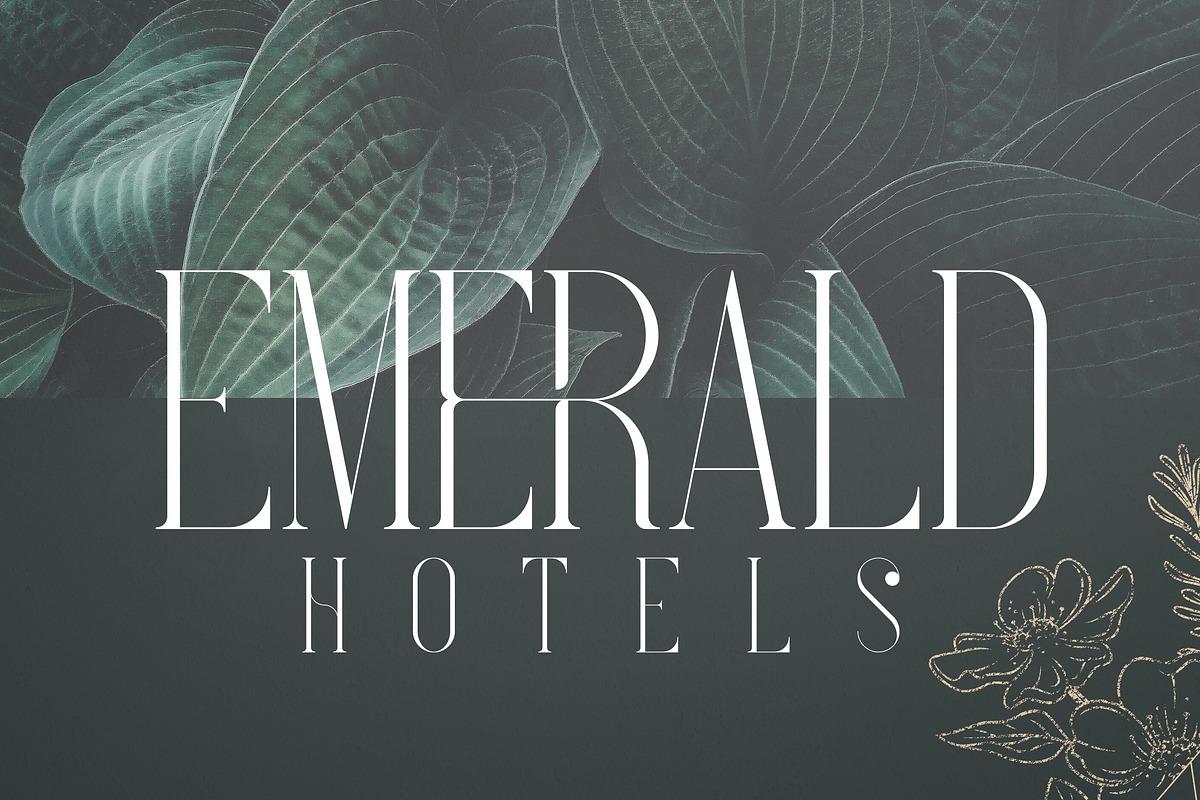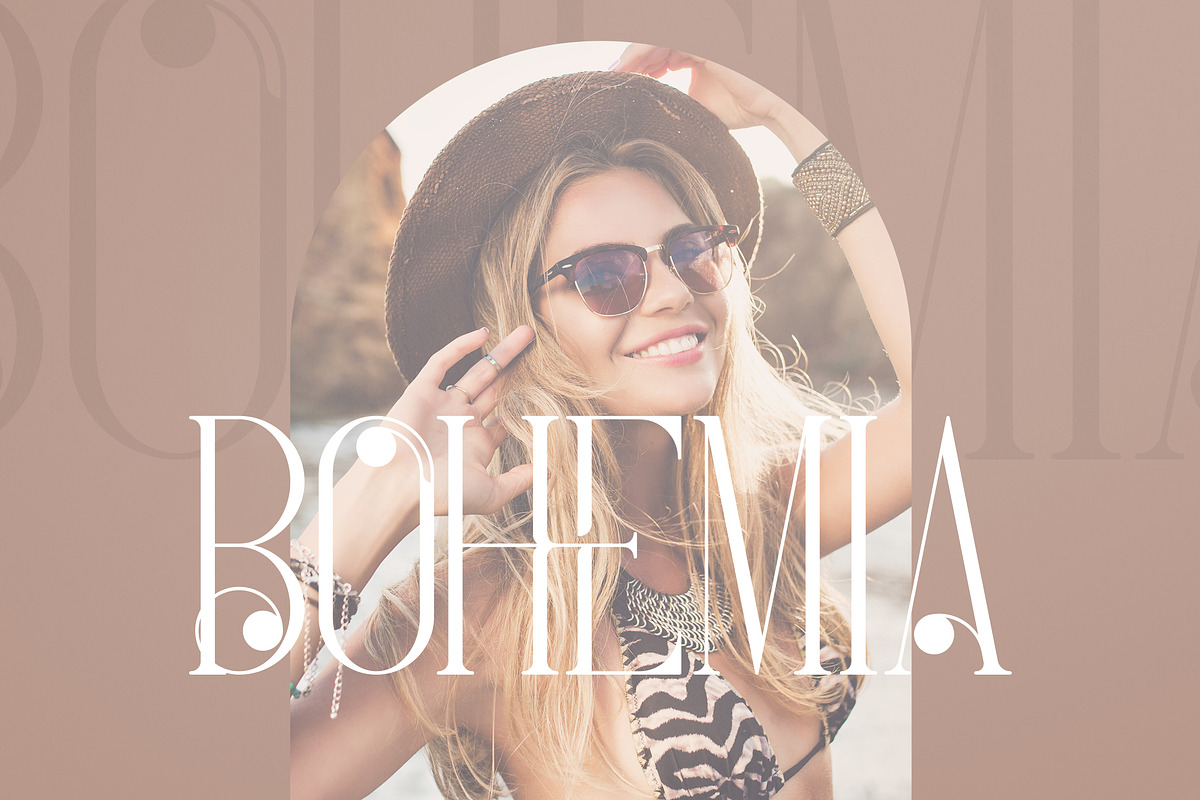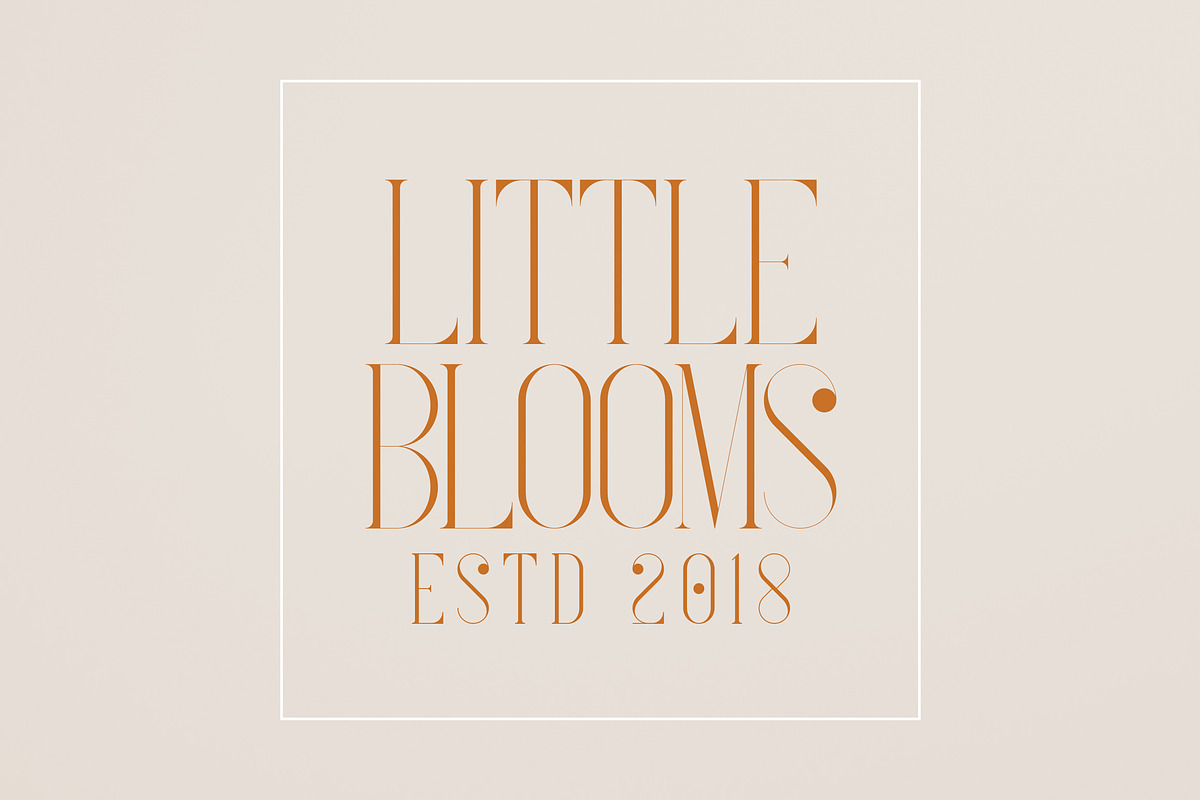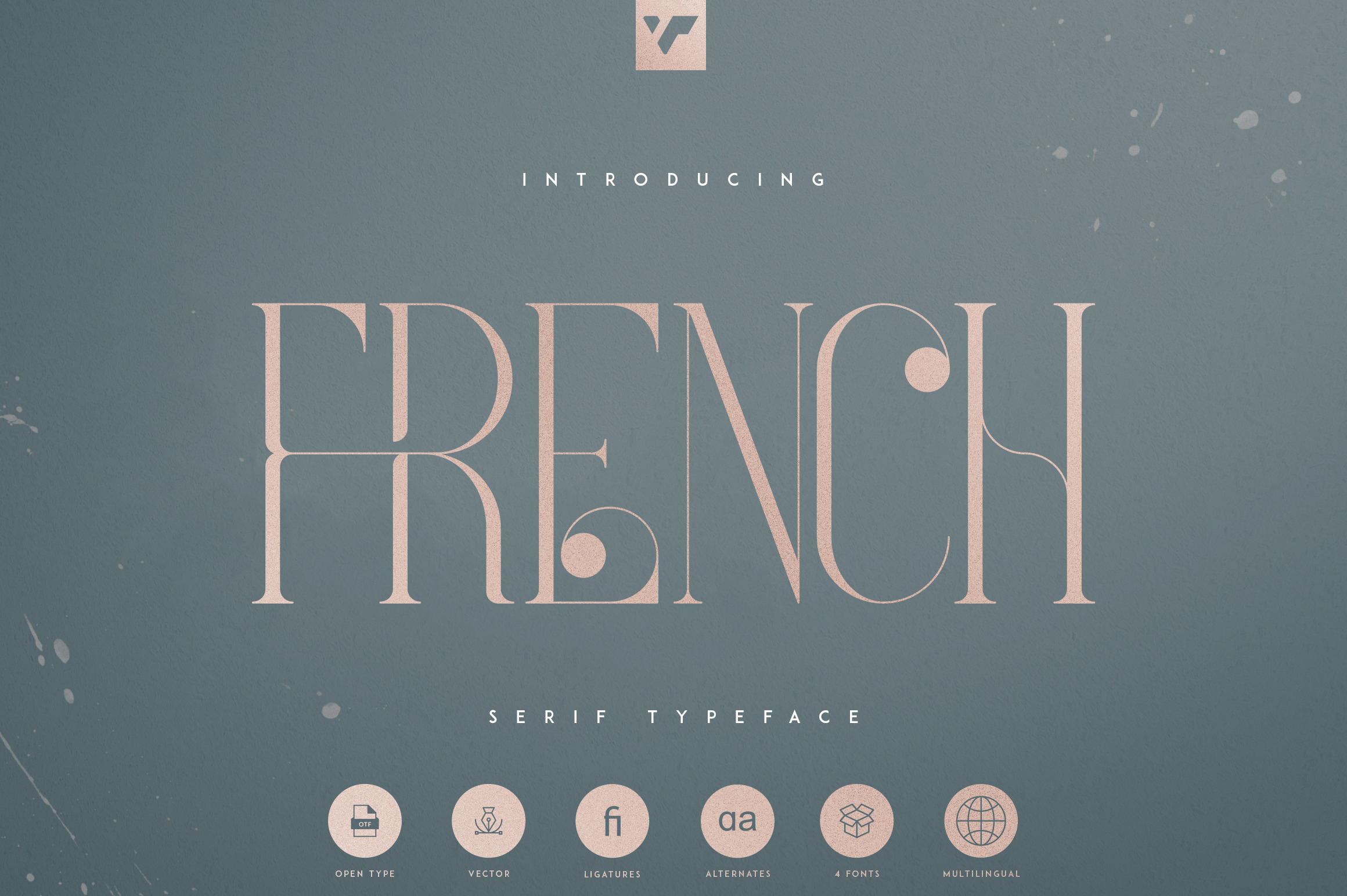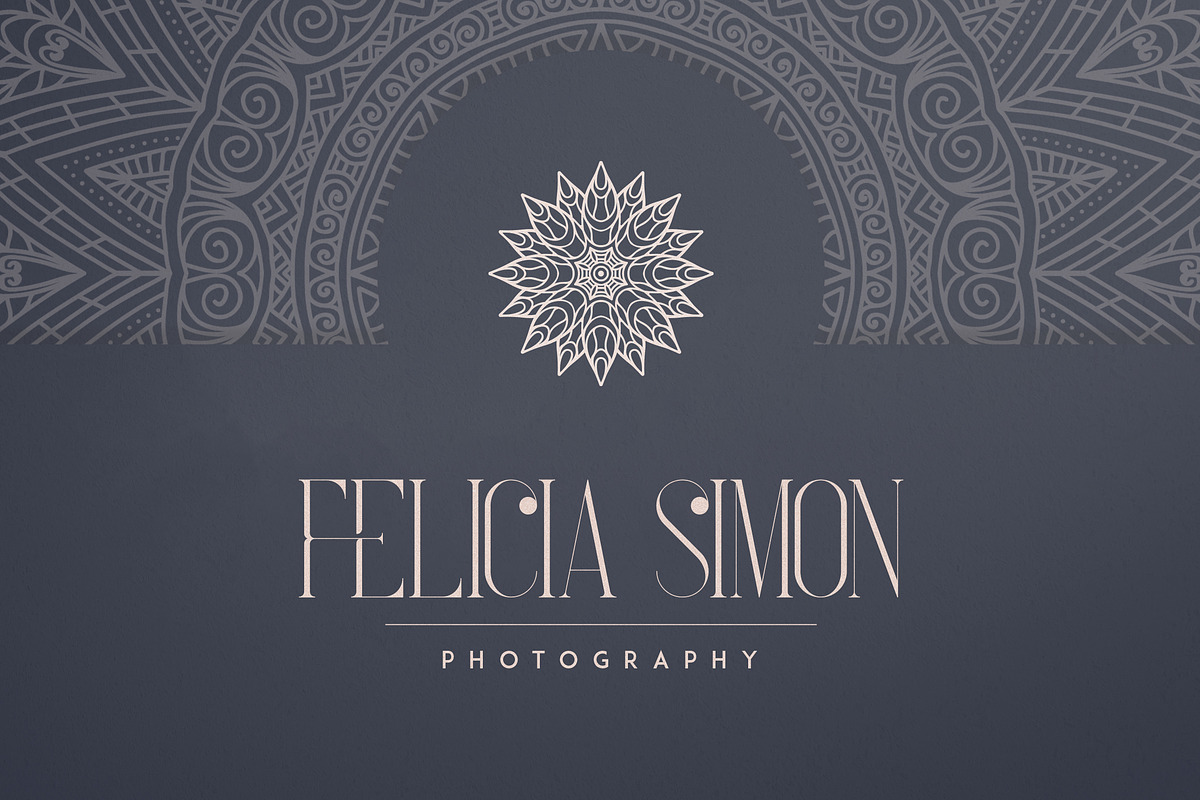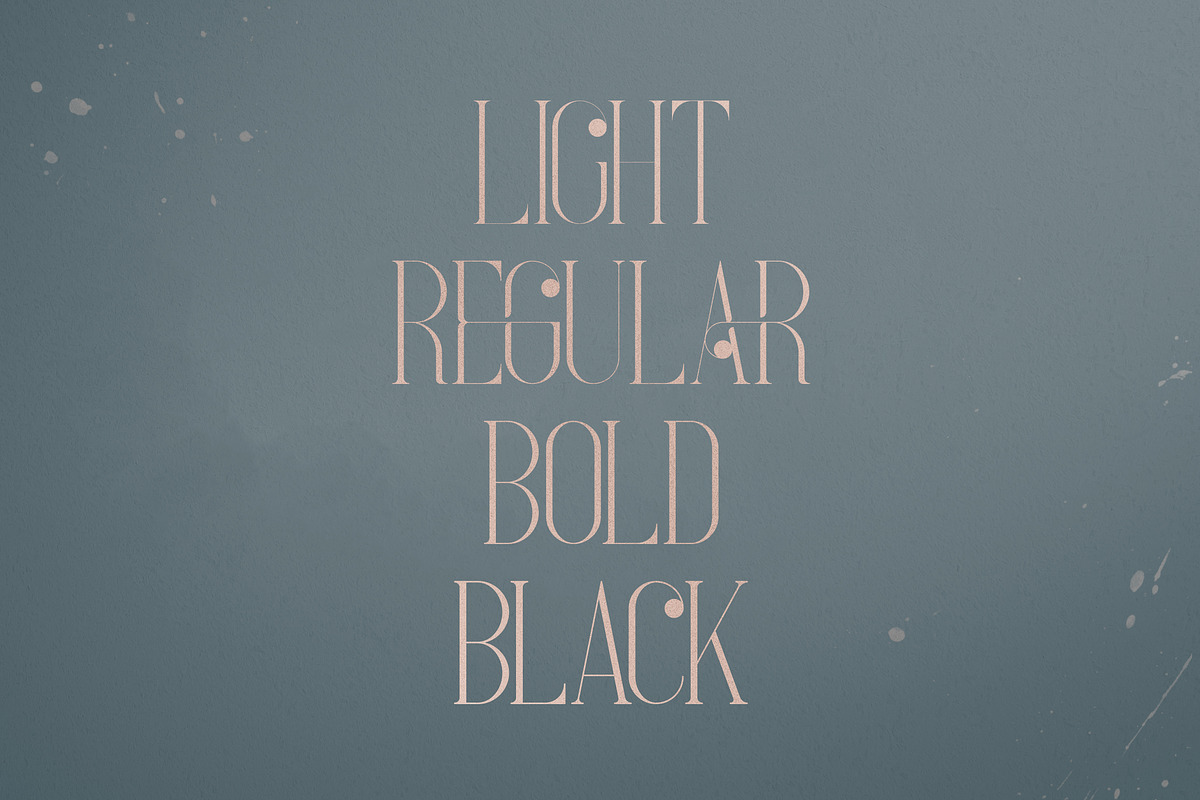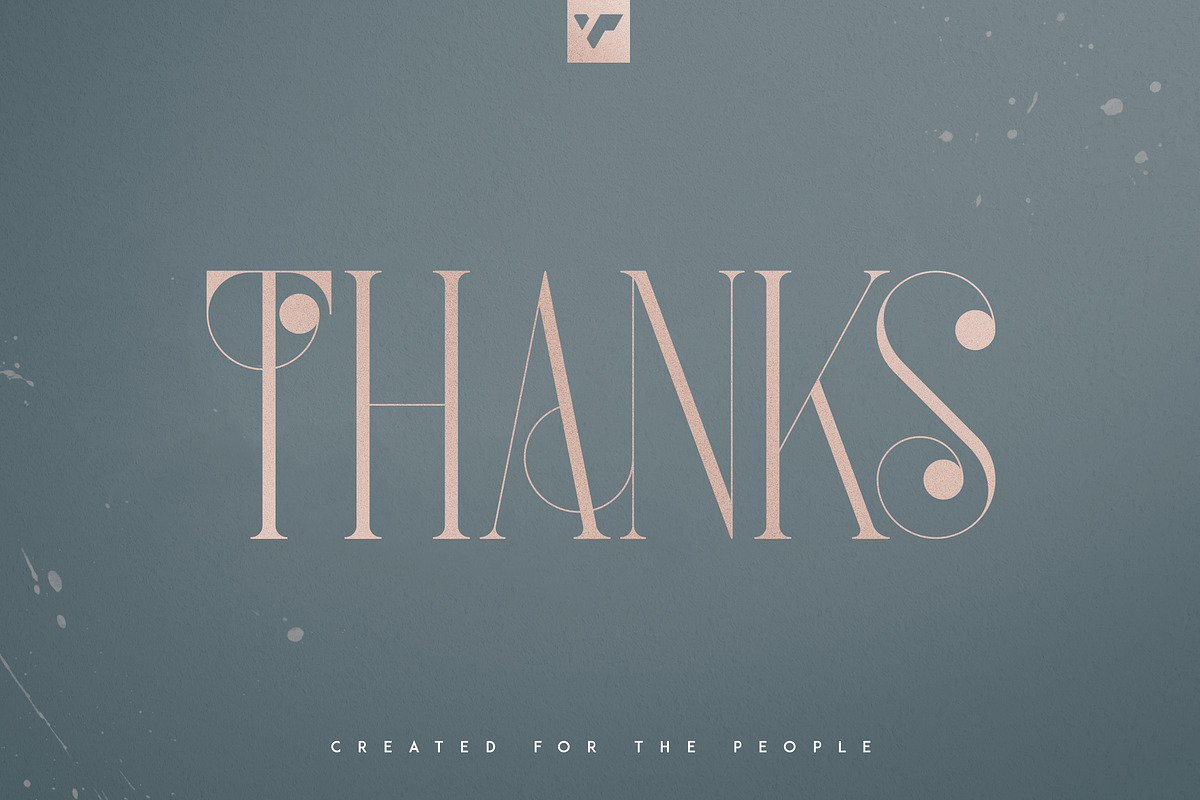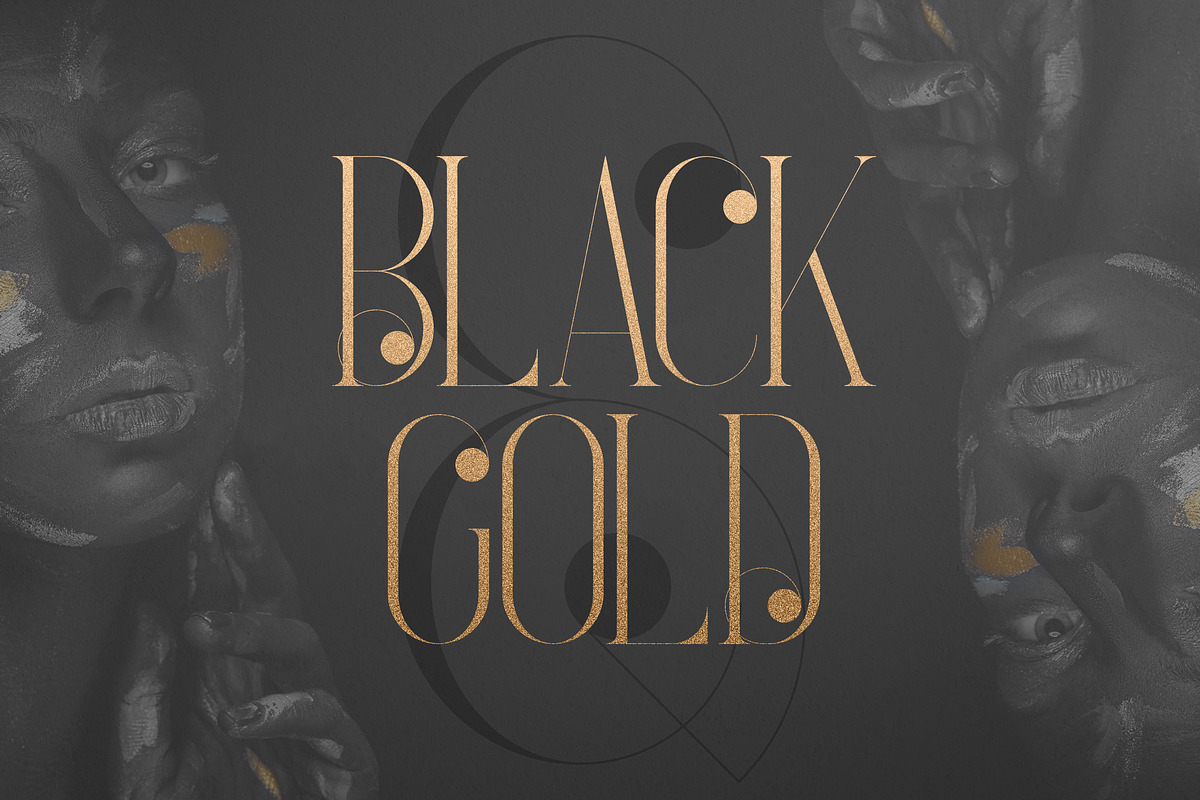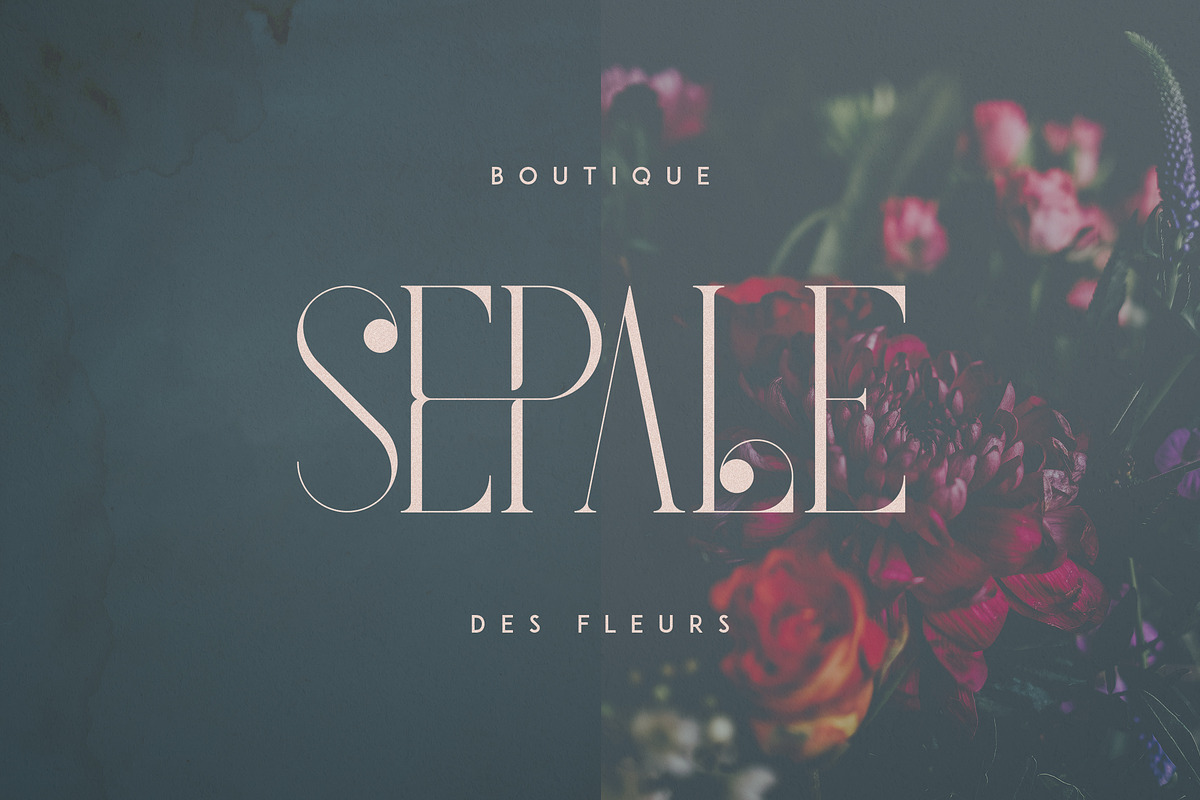
French Typeface - 4 fonts
Introducing French Serif Typeface - 4 weights
French is luxury, clean typeface with 4 fonts to enchant your next project. They are loaded alternate glyphs, ligatures and multilingual support. Very versatile fonts that works great in large and small sizes.
French is perfect for branding projects, home-ware designs, product packaging, magazine headers - or simply as a stylish text overlay to any background image.